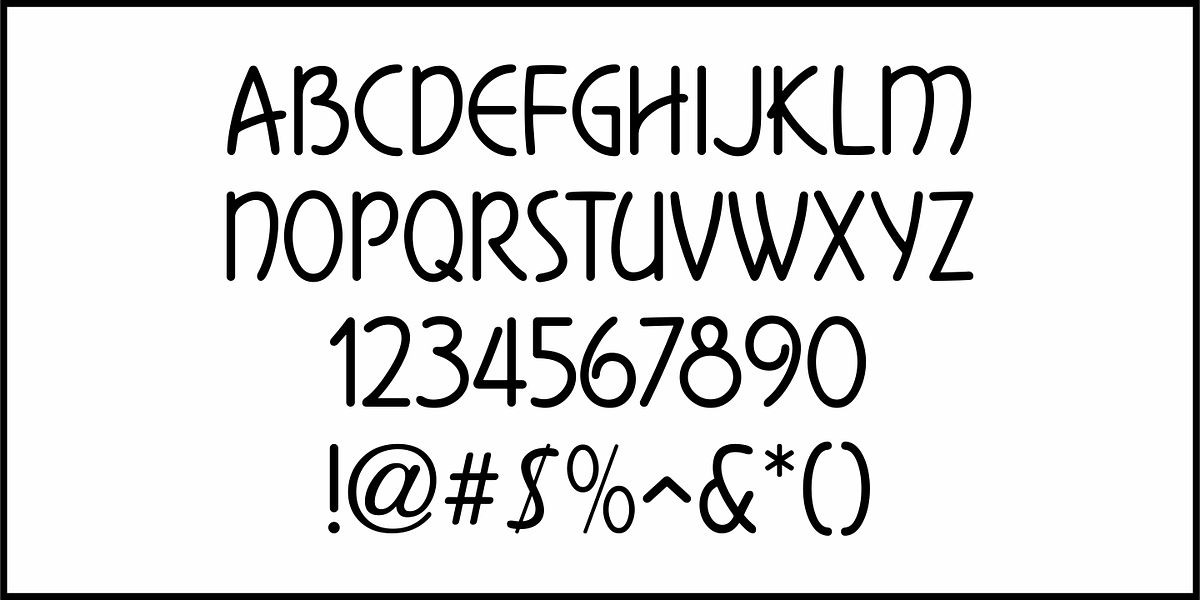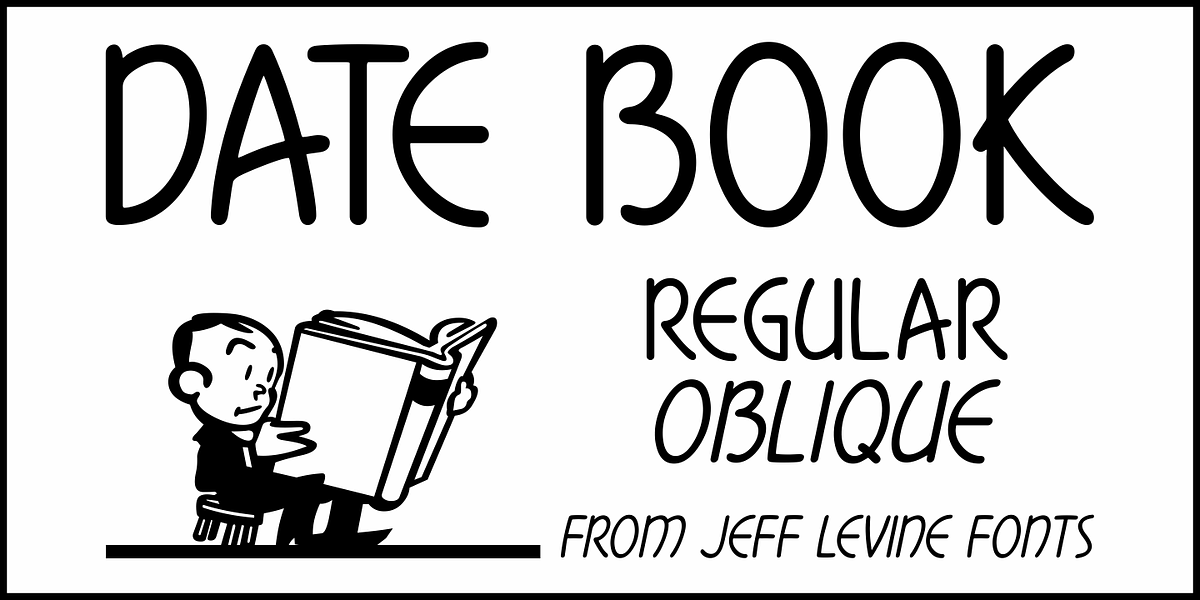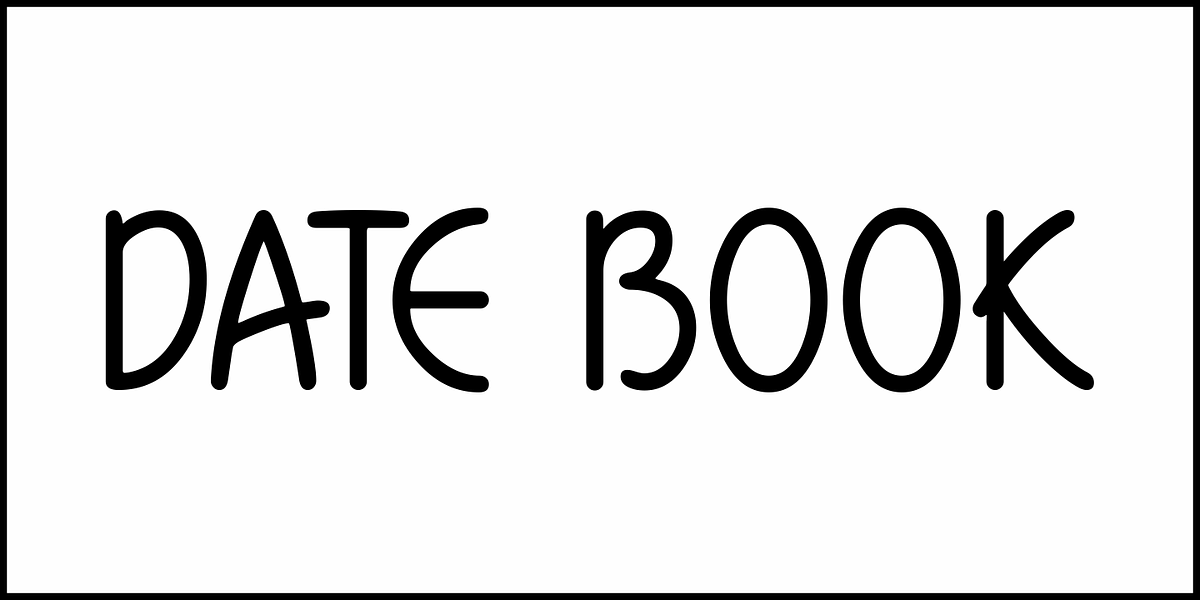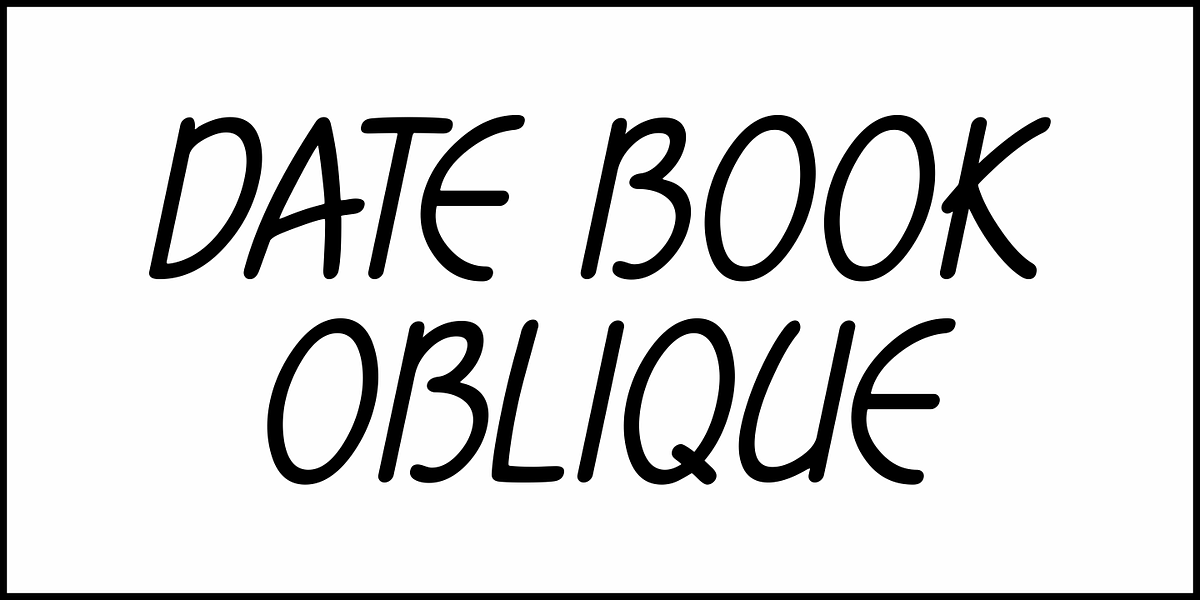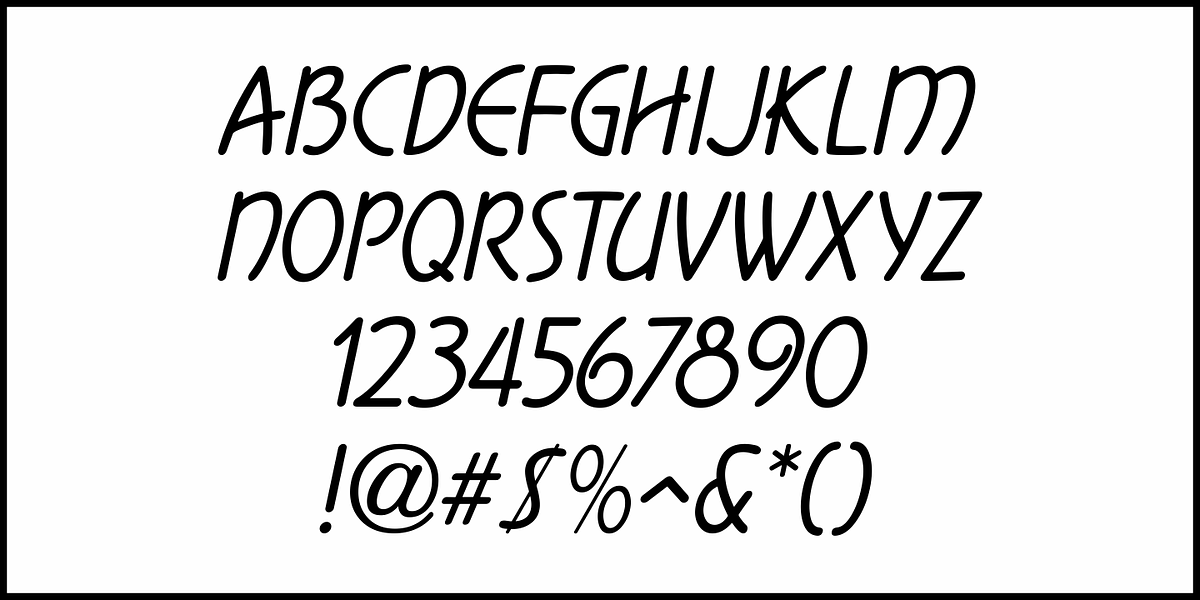
Date Book JNL
The pen lettered opening credits for the 1937 film “The Awful Truth” inspired Date Book JNL, which is available in both regular and oblique versions.
A hybrid of both Art Nouveau and Art Deco influences, this casual type design is perfect for any project that wants to convey its message in a pleasant, informal manner.